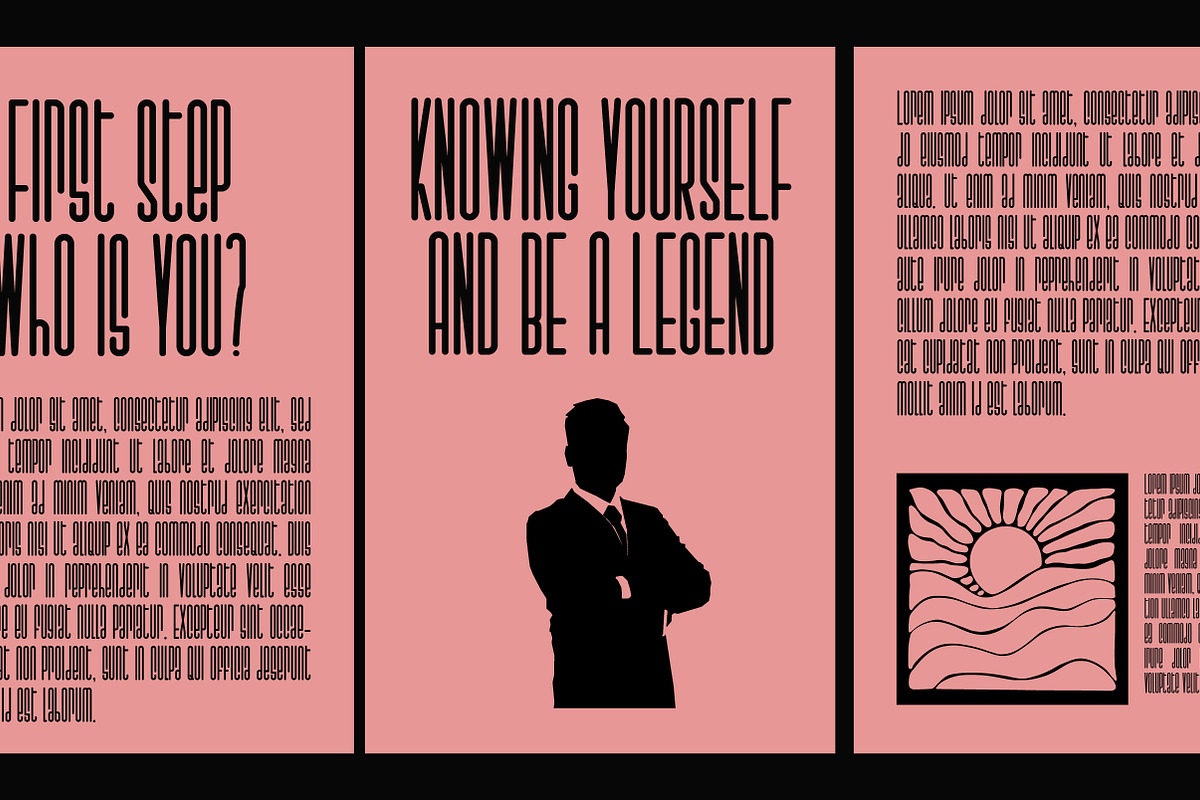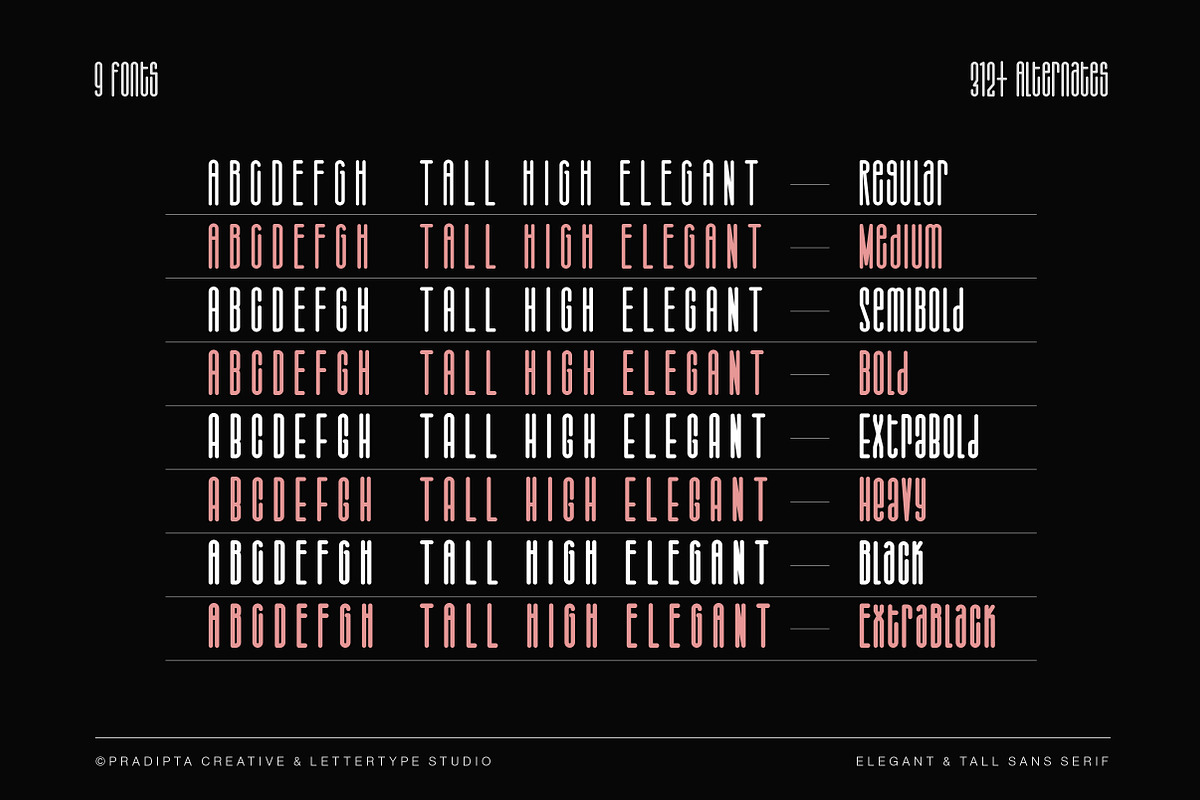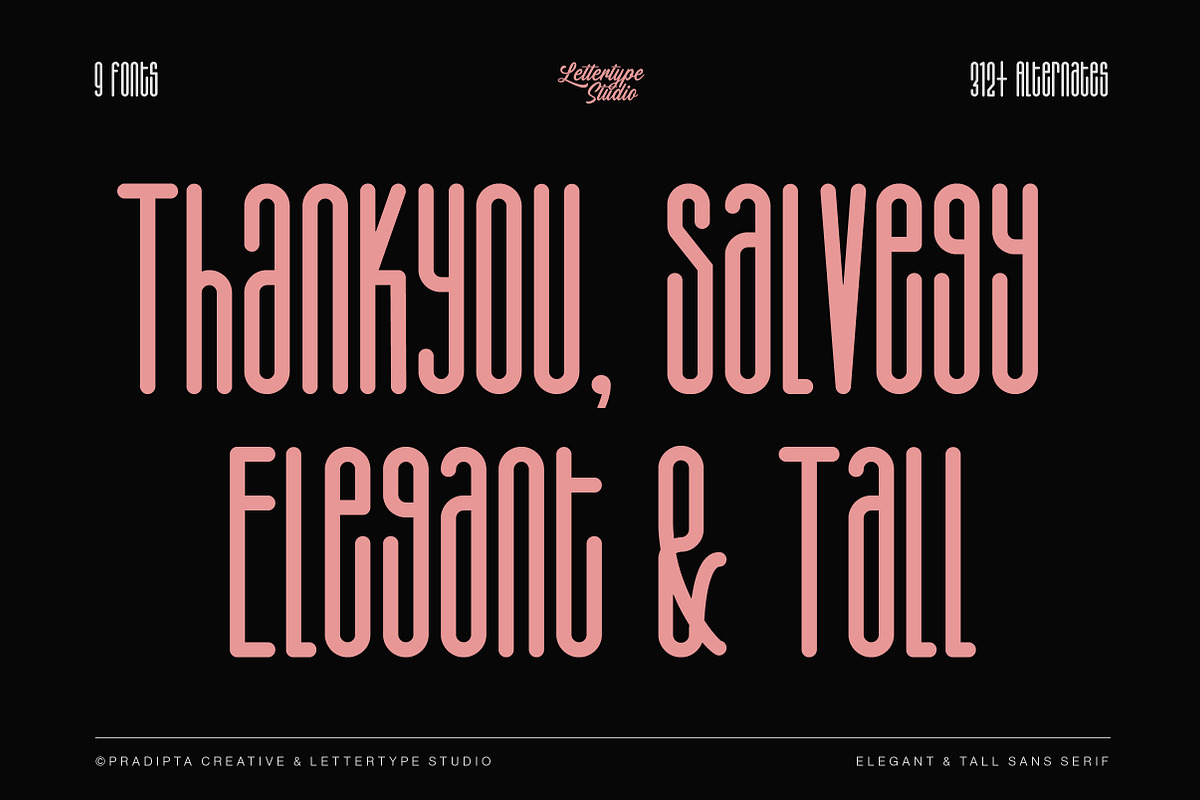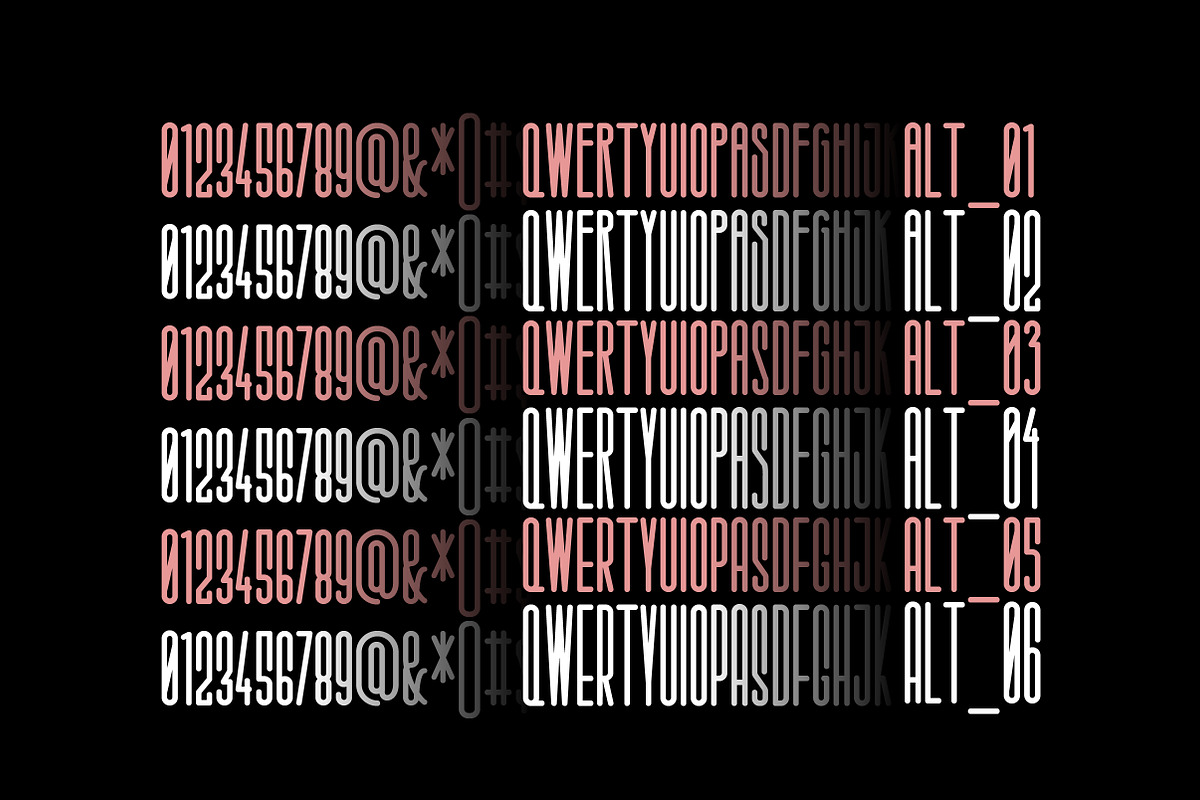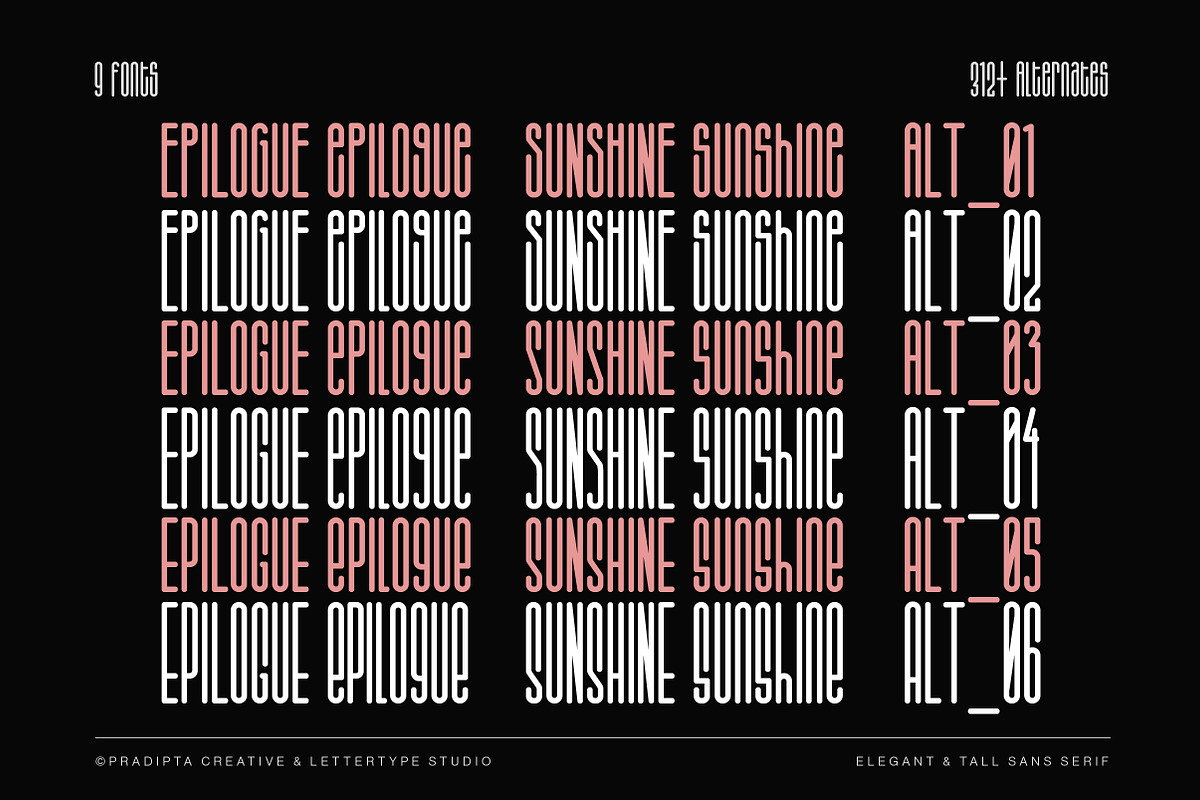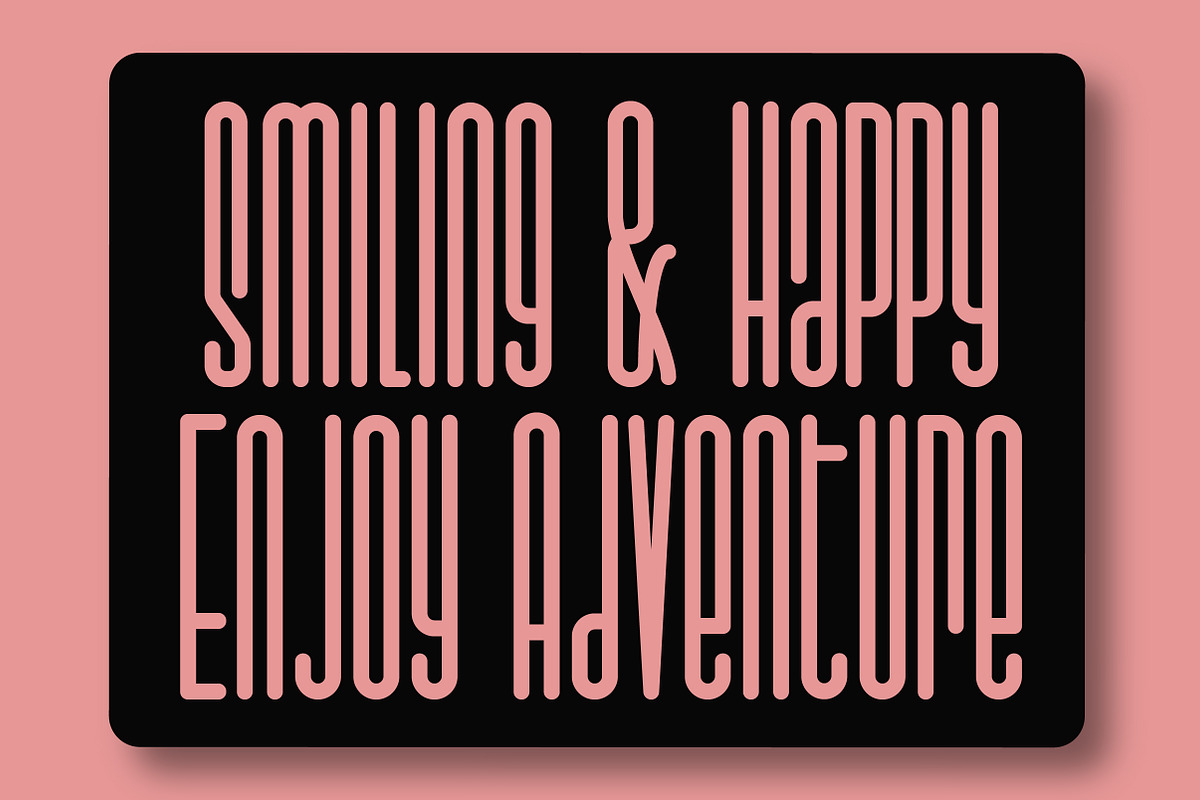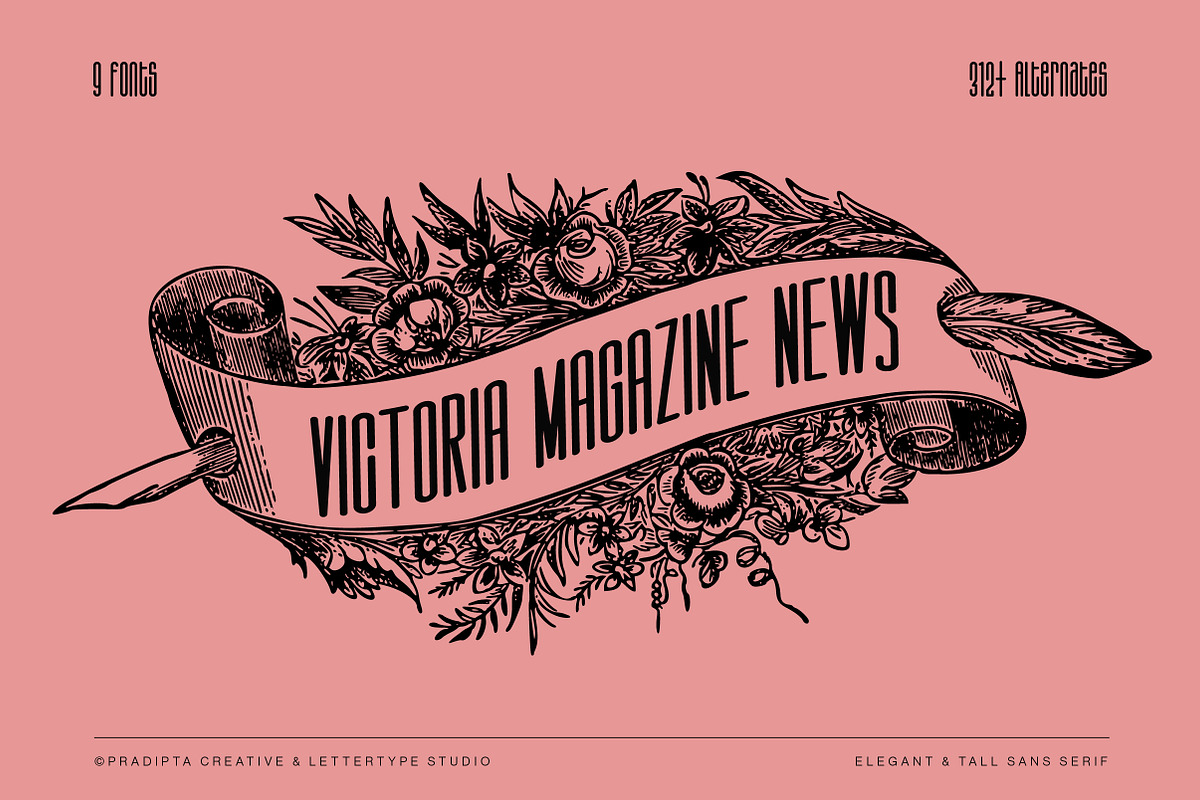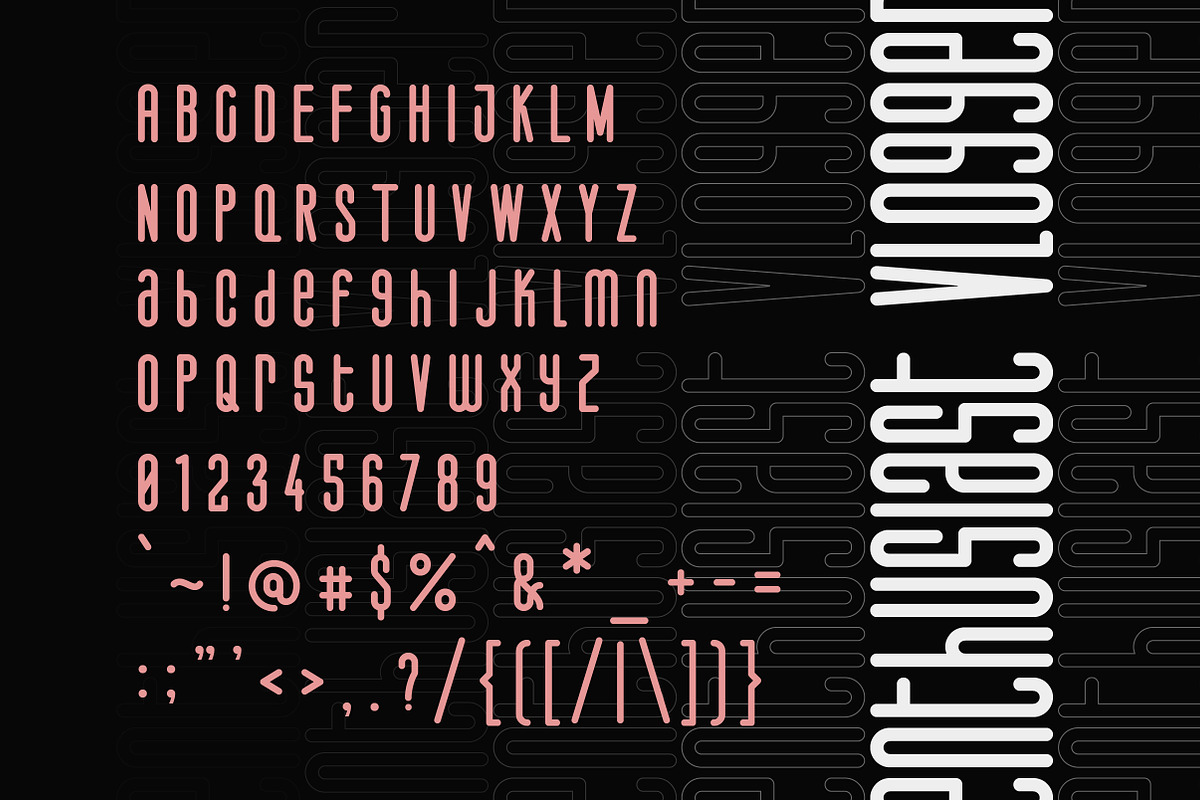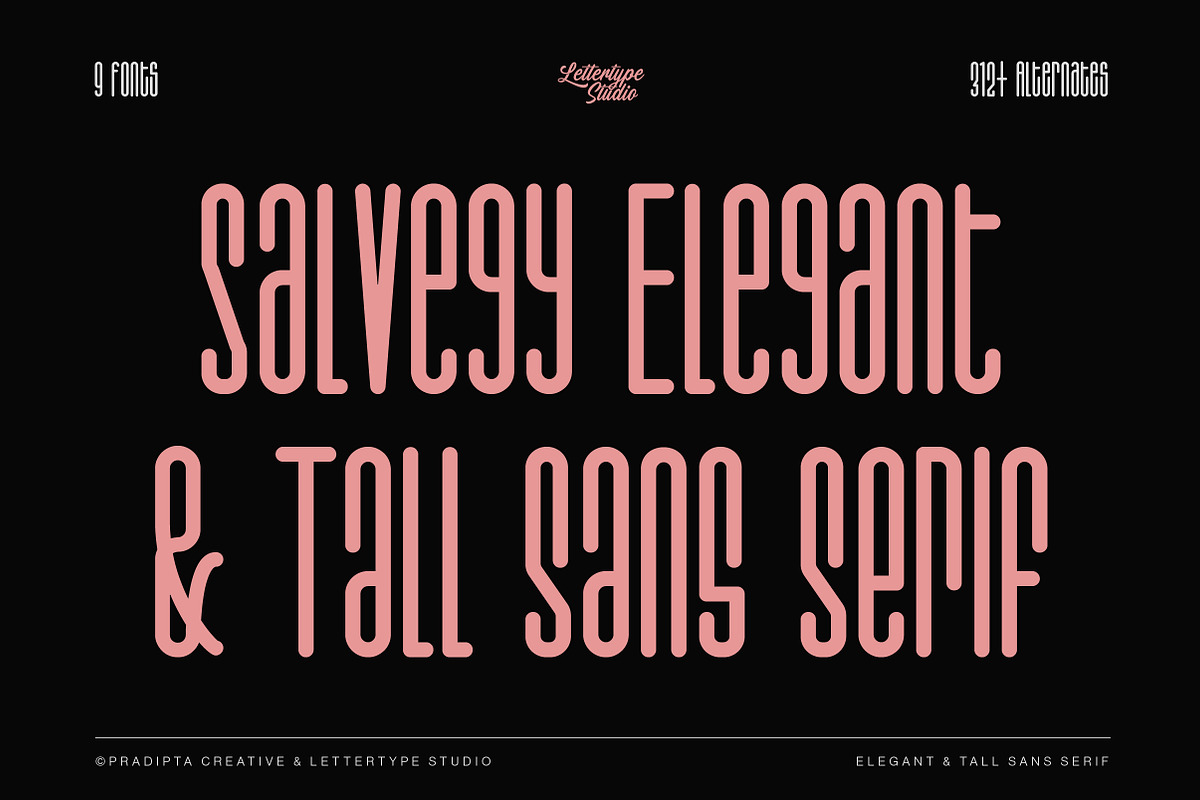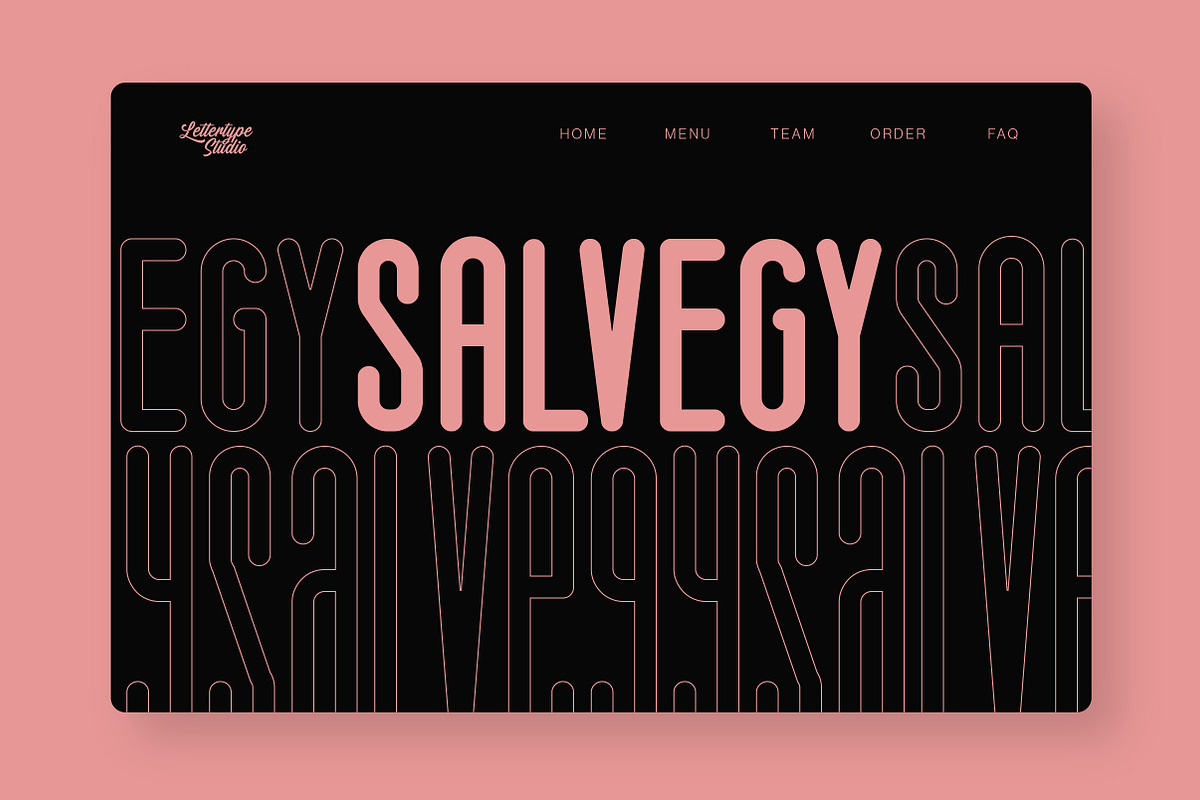
Salvegy Elegant & Tall Sans Serif
Salvegy is a sophisticated choice for designers looking to create modern, clean, and impactful designs. These fonts are characterized by their extended height and slim, refined appearance, making them perfect for high-end branding, editorial layouts, and minimalist designs. The tall and narrow form adds a touch of elegance and professionalism, ensuring that your text stands out with clarity and style. Ideal for headlines, logos, and web design, these fonts blend seamlessly into various creative projects, offering both versatility and a distinctive aesthetic appeal.
This font will be perfect for photography, watermarks, social media posts, advertisements, logos & branding, invitations, product designs, labels, stationery, wedding designs, product packaging, subheaders or headers, special events, or anything.
Salvegy Comes With:
Lowercase & Uppercase
Alternates & Ligature
Font Family (9 Styles)